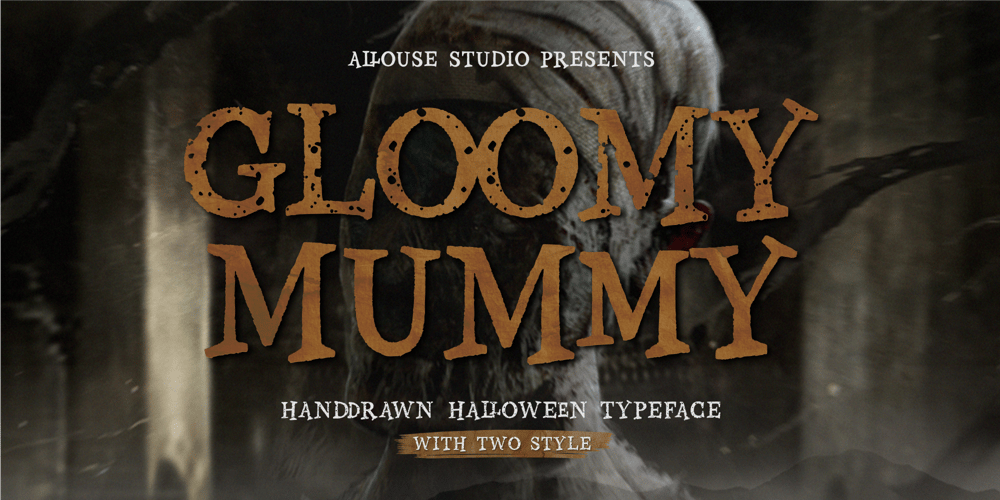
Gloomy Mummy Font Family was designed by Fachrizal Yusuf and published by Allouse Studio. Gloomy Mummy contains 2 styles and family package options. Proudly Presenting, Gloomy Mummy a Handdrawn Halloween Typeface with two styles!Gloomy Mummy is perfect for any titles, logo, product packaging, branding project, megazine, social media, wedding, or just used to express words above the background.Gloomy Mummy also come with Multi-Lingual Support.Enjoy the font, feel free to comment or feedback, send me PM or email. Thank You!